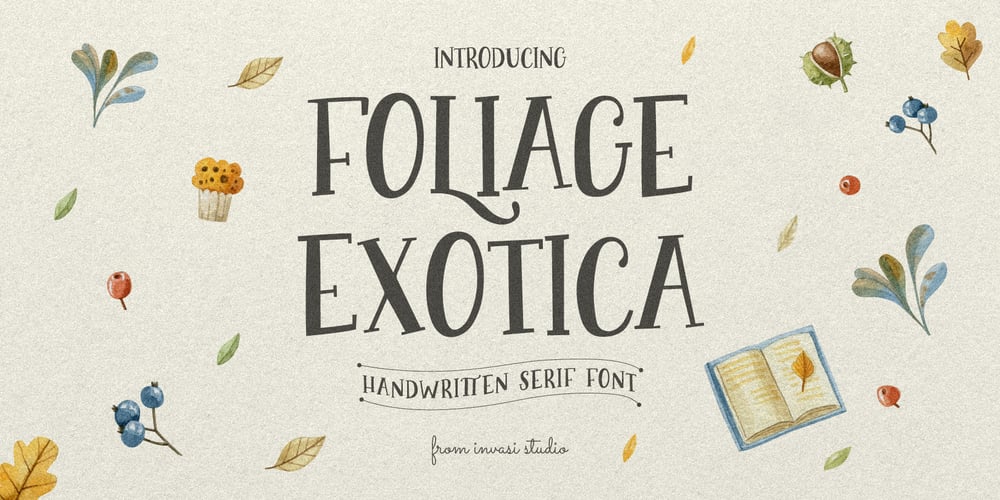
Foliage Exotica
Foliage Exotica font
Foliage Exotica Font Family was designed by Gha Arizal and published by Invasi Studio. Foliage Exotica contains 1 styles and family package options. Foliage Exotica is a serif font that can add a playful touch to your project. It comes in a brush handwritten dreaming style. Foliage Exotica is perfect for casual types on greeting cards, illustrations, quotes, quaint branding, book covers, children’s books, packaging, and more.Features:- Total 230 Glyph – Uppercase – Numerals & Punctuation- Alternates and Ligatures- Multilanguage Supports 60+ Latin based languages